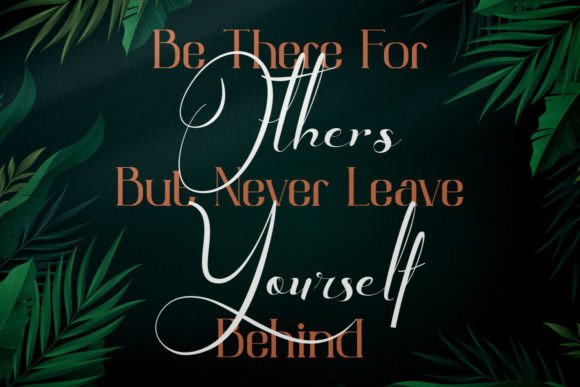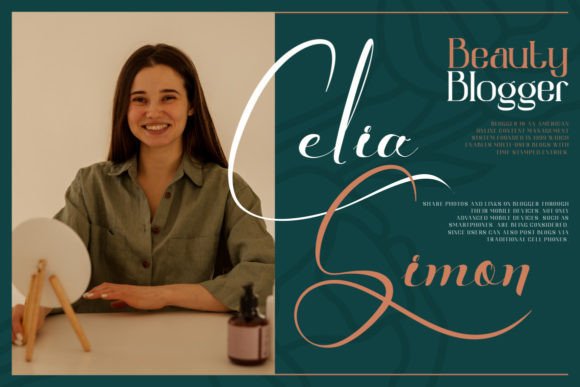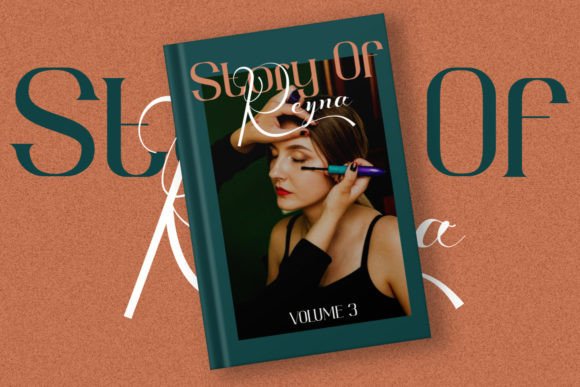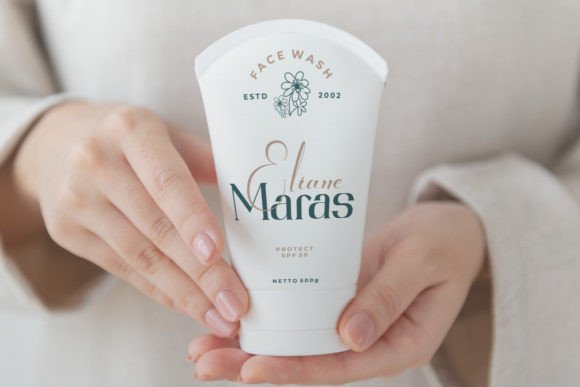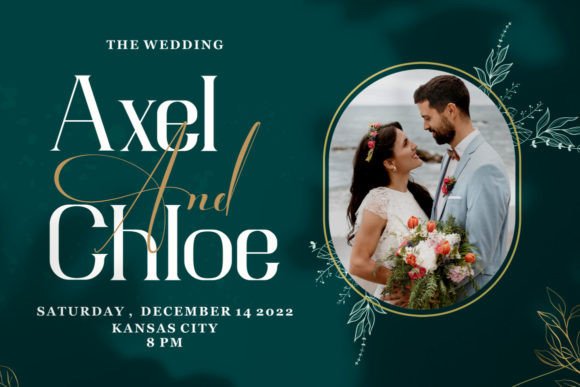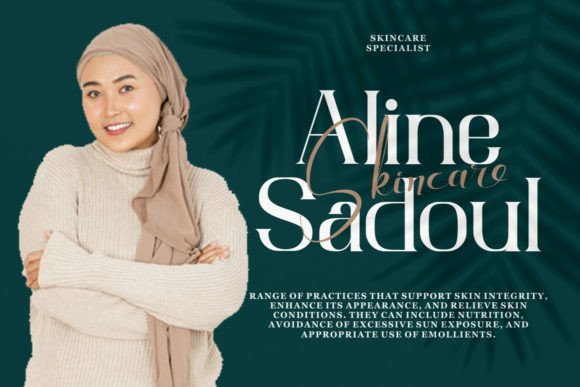
Introduction to Chester Chesire Font
Chester Chesire – Elegant Font Duo is a digital product featuring a script and serif font duo designed with an elegant and luxurious style.
Inspired by classic design with a modern touch, this font aims to provide a captivating and professional impression in various design contexts It is particularly suitable for magazines, the fashion industry, headlines, printing materials, wedding invitations, and businesses seeking an aesthetic and beautiful font.
Key Features of Chester Chesire Font
Why Choose Chester Chesire Font?
Chester Chesire Font offers exceptional quality and versatility, making it a valuable addition to your design toolkit. Whether you’re creating for personal projects or commercial use, Chester Chesire Font delivers professional results.